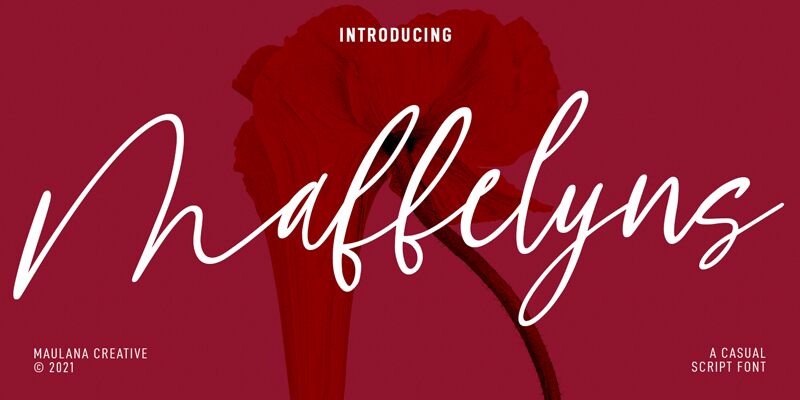
Maffelyns is a light, signature handwritten font designed by Maulana Creative. Perfect for adding a unique touch to logos, stationary, and invitations, this creative typeface is ideal for any project needing an elegant personal touch.